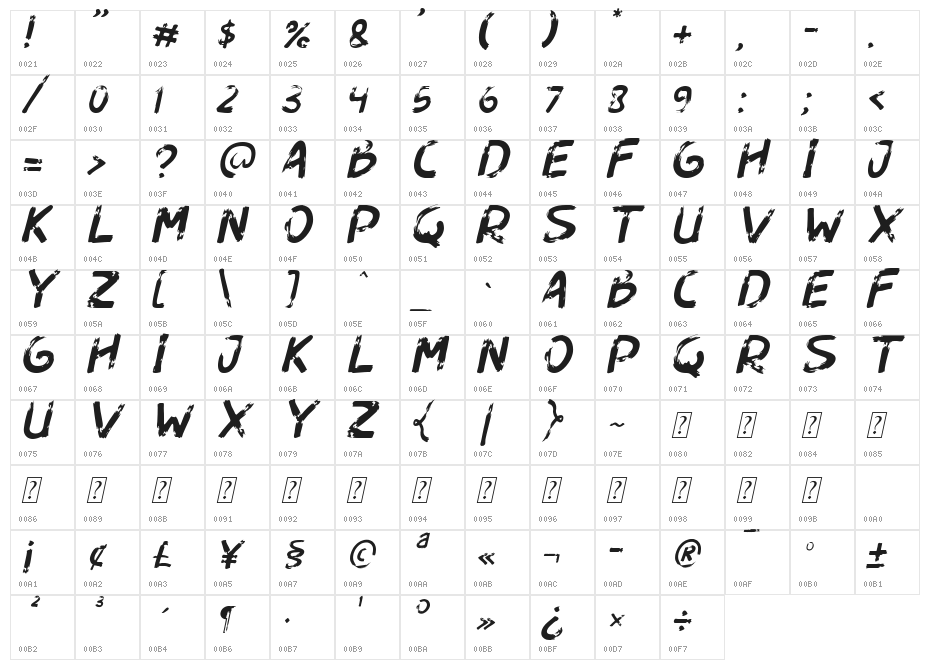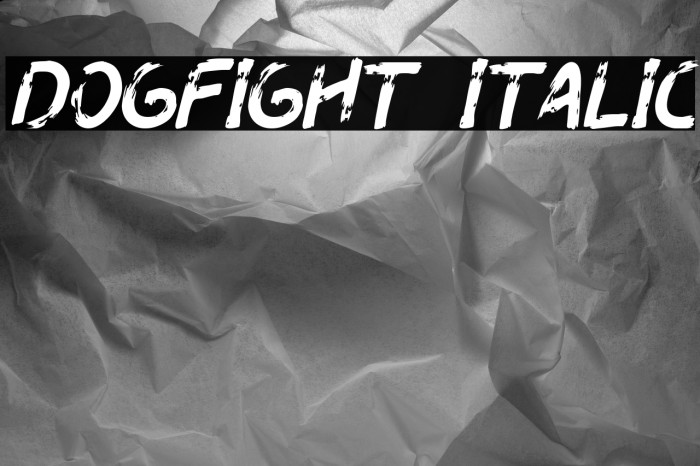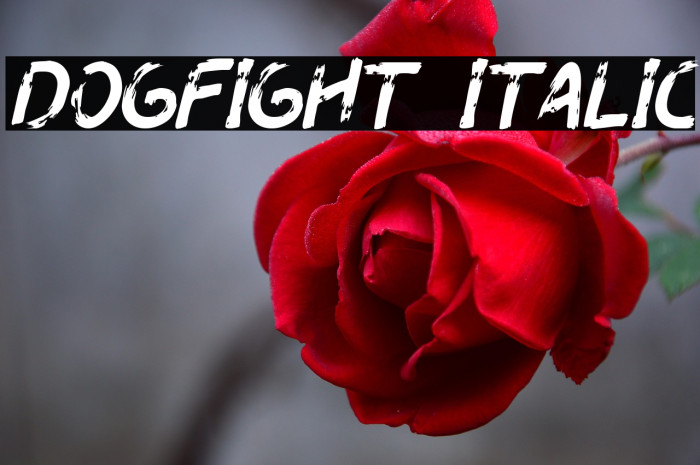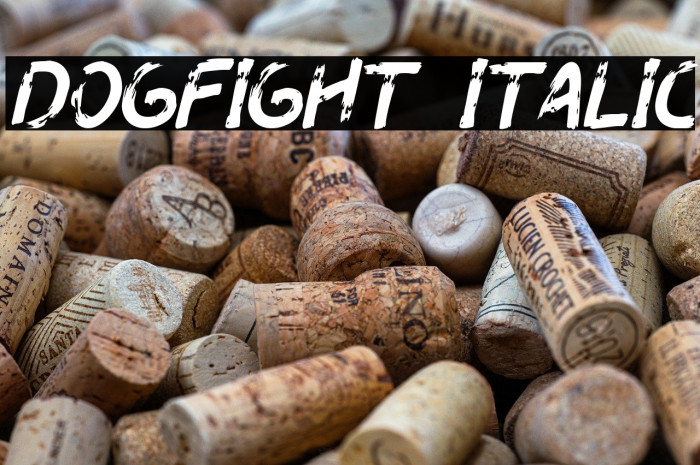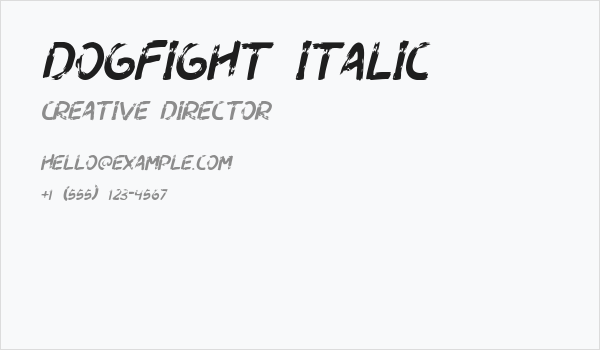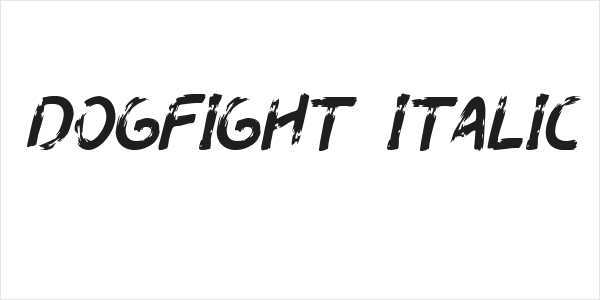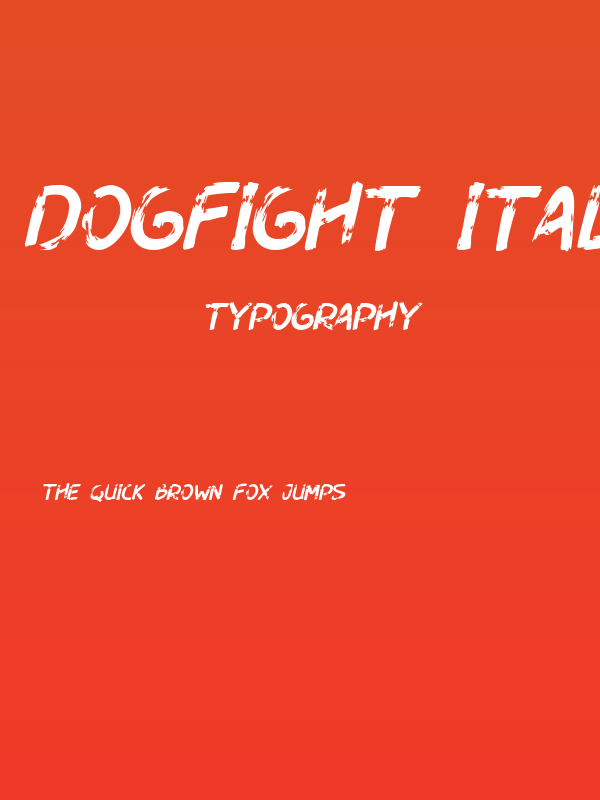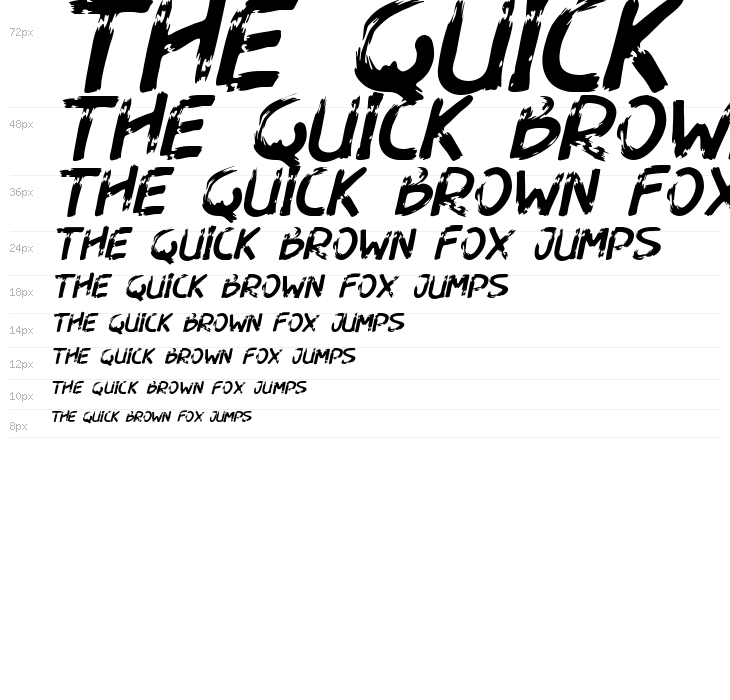
Dogfight Italic Font
Dogfight Italic Description
This font features a bold and dynamic style with a distressed, brush-like appearance. The characters are italicized, giving them a sense of motion and energy. The strokes are uneven and jagged, creating a rugged and edgy look. This font is highly decorative and makes a strong visual impact, suitable for attention-grabbing designs. The uppercase and lowercase letters maintain a consistent style, with numbers and special characters following the same aesthetic. The overall design is expressive and artistic, ideal for projects that require a bold statement.
| Proposed Projects | Ideal for posters, album covers, video game titles, and any project needing a bold, artistic touch. |